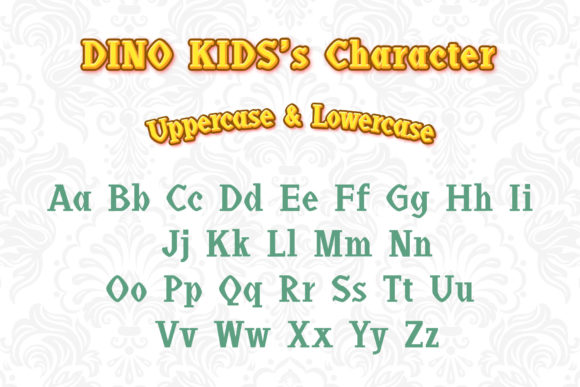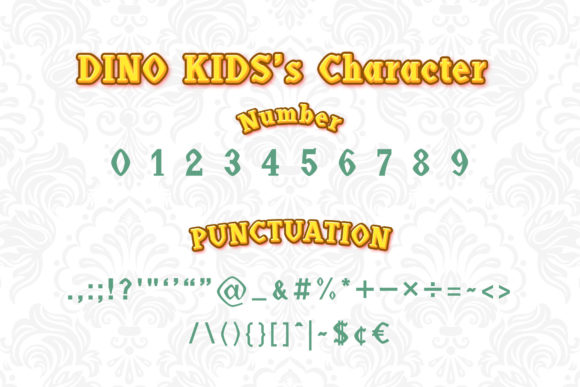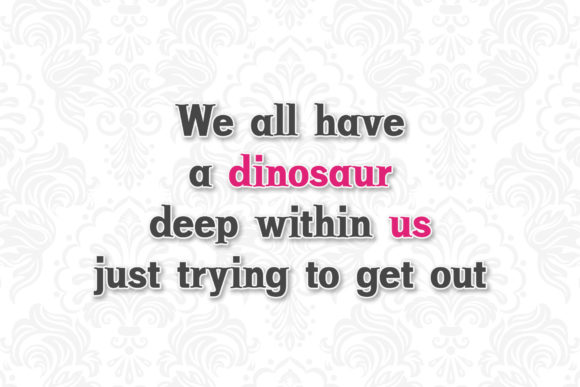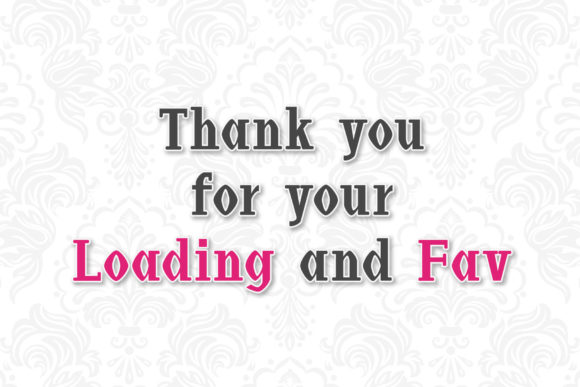
Dino Kids Font: Unleash Your Creativity with a Bold and Authentic Serif Font
Are you a designer or crafter looking for a font that can add a touch of excitement and personality to your projects? Look no further than the Dino Kids Font! This bold and authentic serif font is perfect for making your creative ideas stand out and leave a lasting impression.
What is Dino Kids Font?
Dino Kids Font is a carefully crafted serif font that exudes confidence and playfulness. Its bold and authentic design makes it perfect for a wide range of projects, from children’s books and educational materials to posters, flyers, and crafts. The font’s unique character and charm are sure to capture the attention of your audience and make your work memorable.
Key Features of Dino Kids Font
- Bold and Authentic Design: The Dino Kids Font boasts a bold and authentic serif design that is sure to make your projects stand out.
- Versatility: This font can easily be matched to an incredibly large set of projects, making it a versatile addition to your font collection.
- Easy to Read: The font’s clear and legible design ensures that your text is easy to read, even at smaller sizes.
- Perfect for Kids’ Projects: The playful and fun design of the Dino Kids Font makes it perfect for kids’ projects, such as children’s books, educational materials, and kids’ crafts.
Use Cases for Dino Kids Font
The Dino Kids Font is perfect for a wide range of projects, including:
- Children’s Books: Add a touch of excitement and personality to your children’s books with the Dino Kids Font.
- Educational Materials: Make learning fun with the Dino Kids Font, perfect for educational materials, such as worksheets, activity sheets, and educational posters.
- Posters and Flyers: Create eye-catching posters and flyers with the Dino Kids Font, perfect for promoting events, products, or services.
- Crafts and DIY Projects: Add a personal touch to your crafts and DIY projects with the Dino Kids Font, perfect for making cards, gift tags, and other handmade items.
Why Choose Dino Kids Font?
So, why choose the Dino Kids Font for your projects? Here are just a few reasons:
- Unique and Playful Design: The Dino Kids Font boasts a unique and playful design that is sure to capture the attention of your audience.
- High-Quality Design: The Dino Kids Font is designed to high-quality standards, ensuring that your projects look professional and polished.